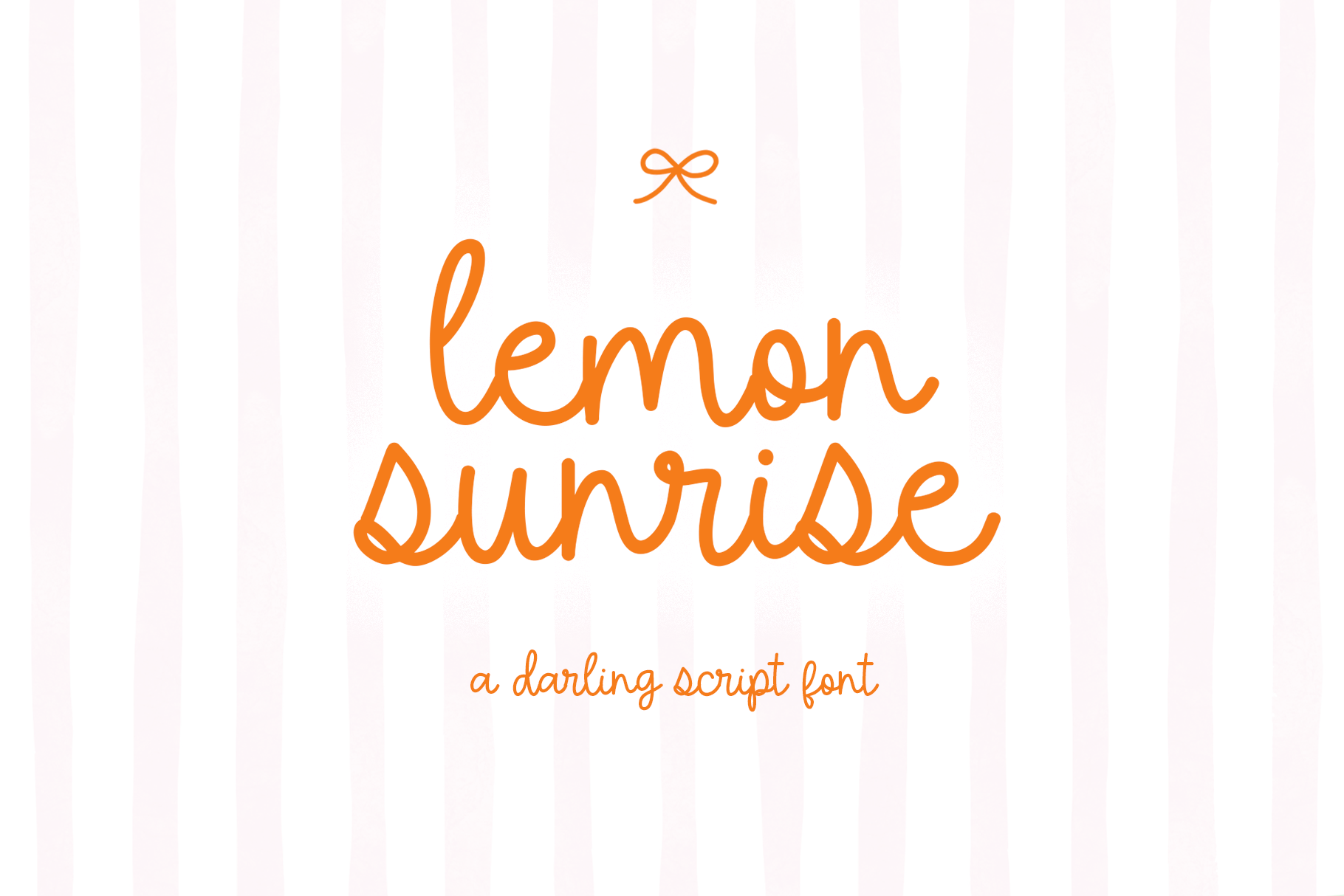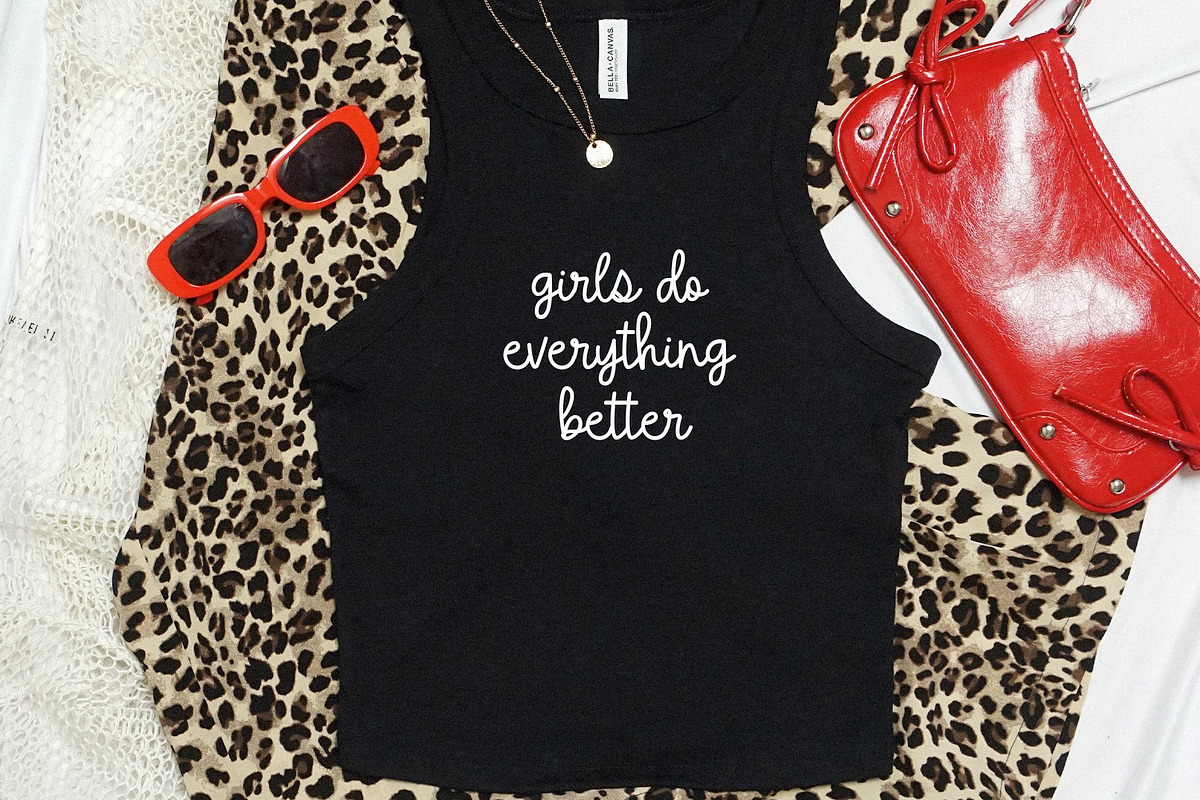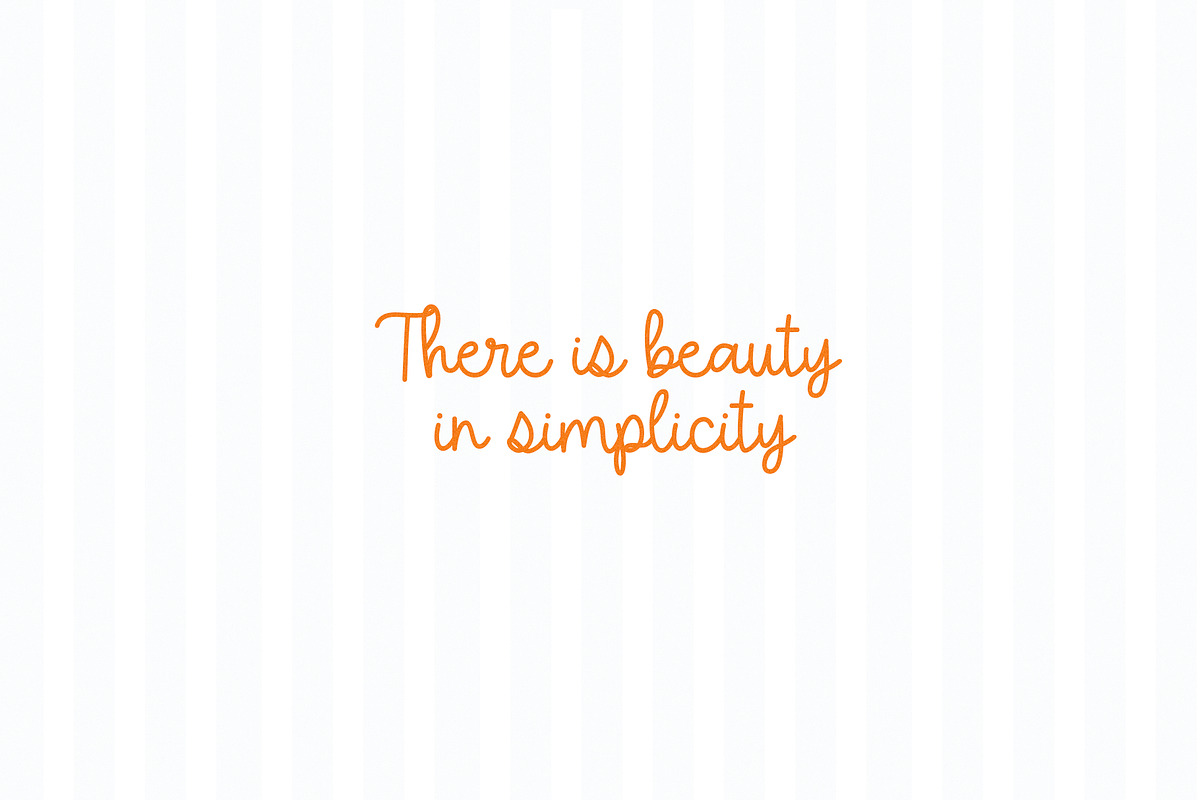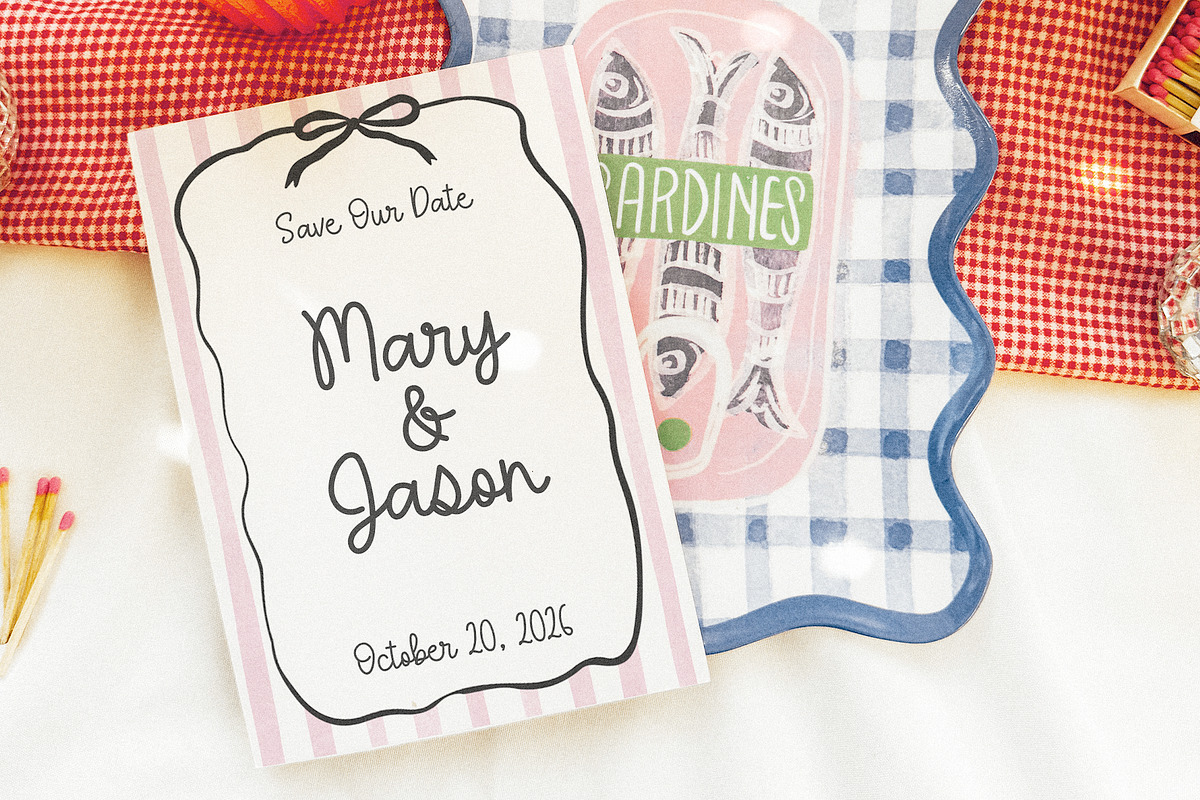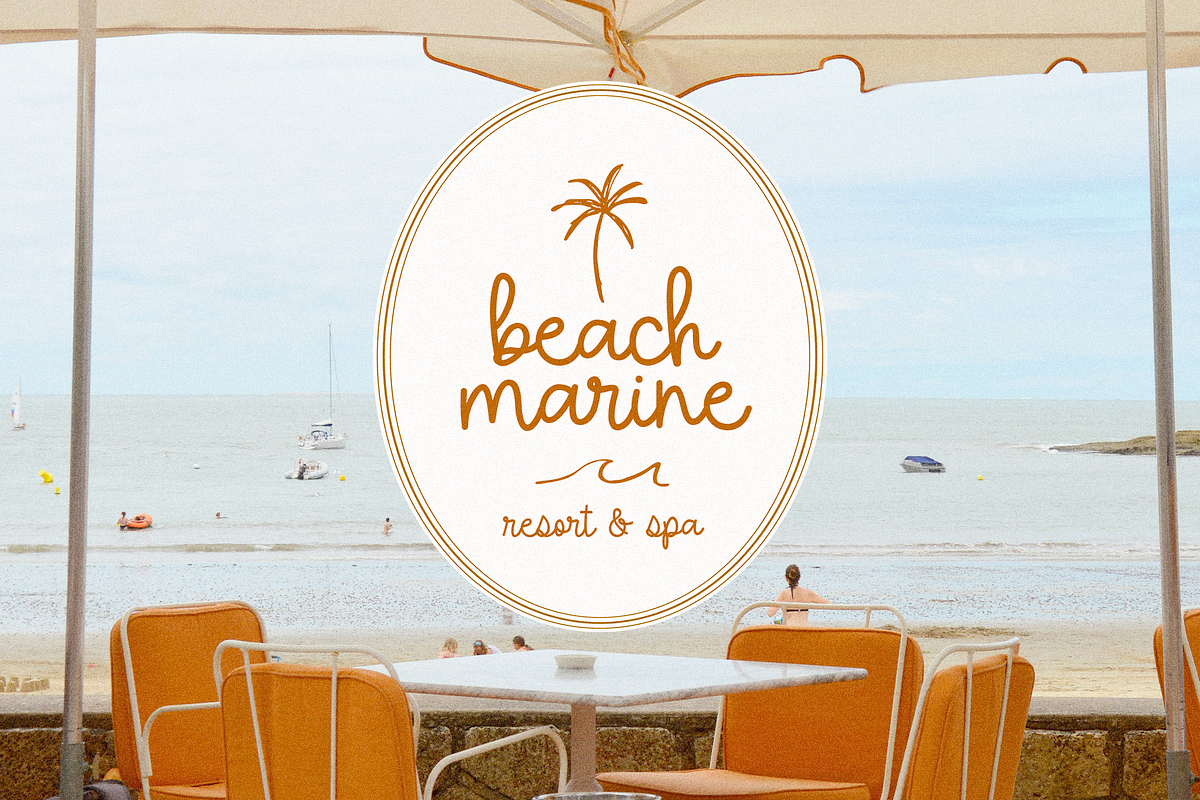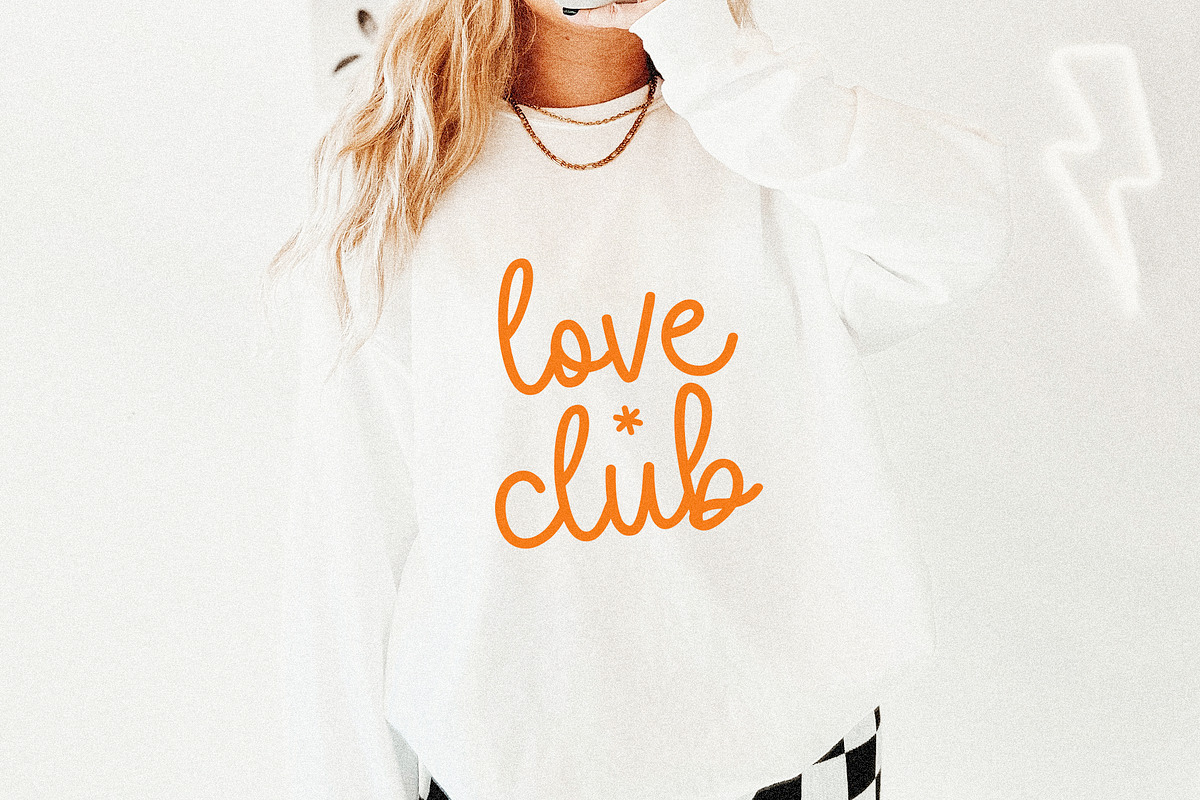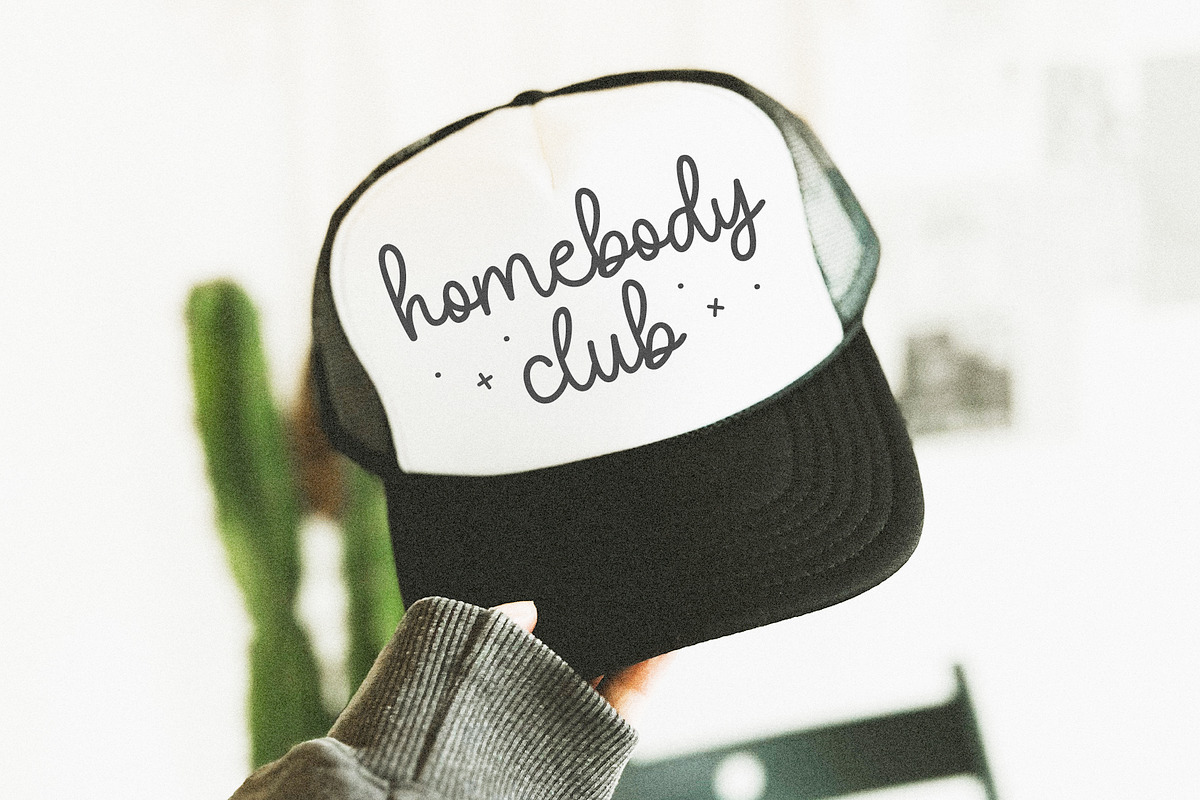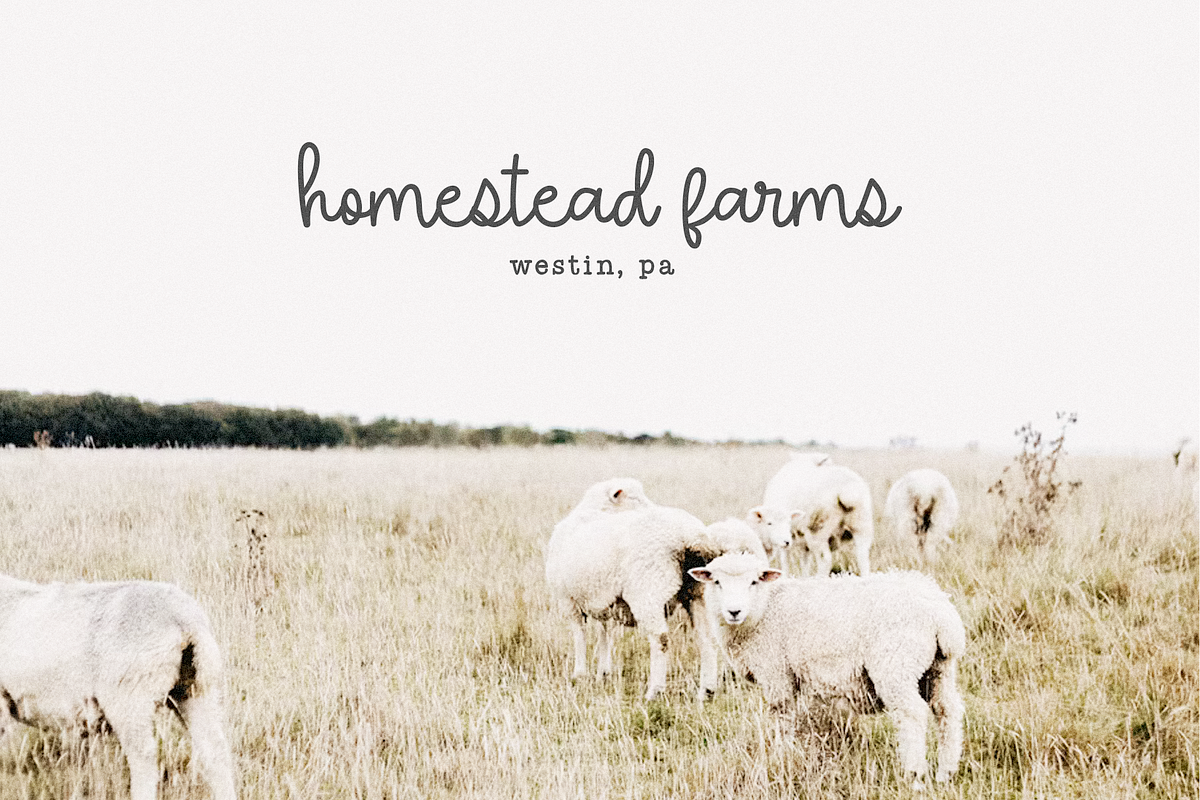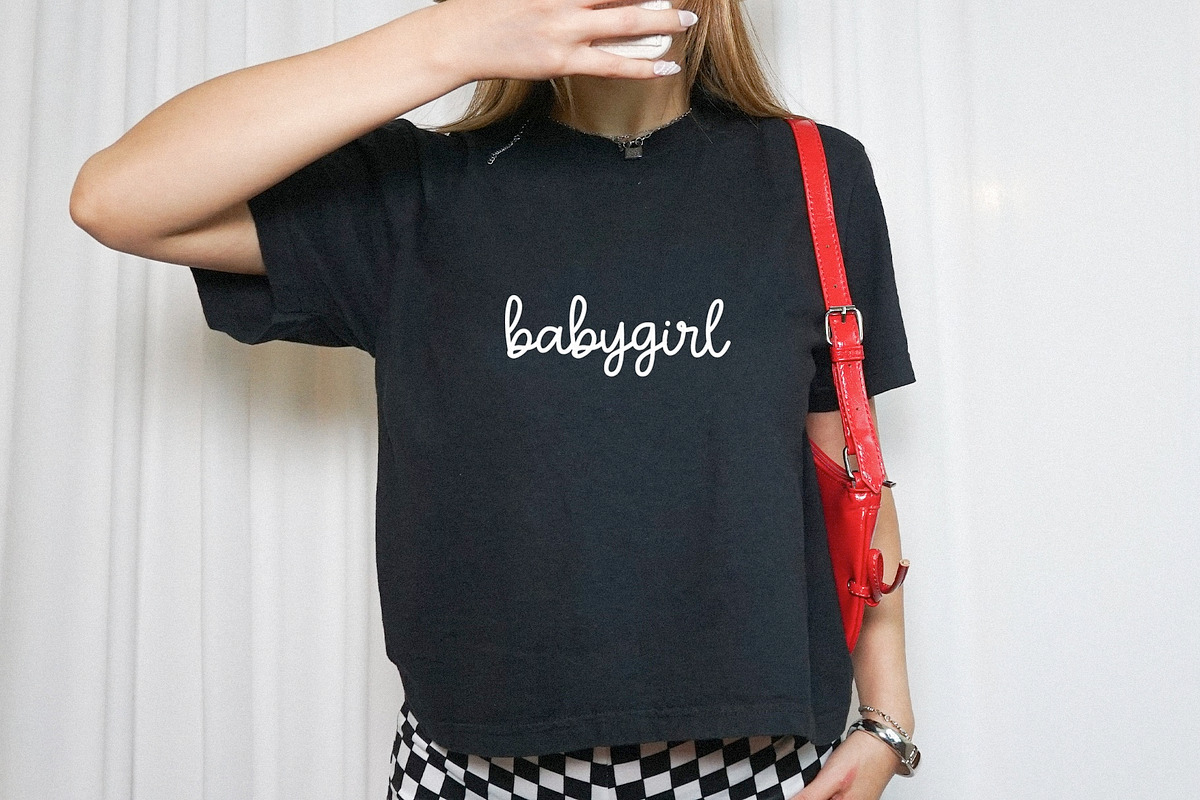
Lemon Sunrise | Script Font
Lemon Sunrise is a cute handwritten script font.
This font is perfect for wedding decor, invitations, canva projects, cricut, logos, teachers, goodnotes, planners and more!